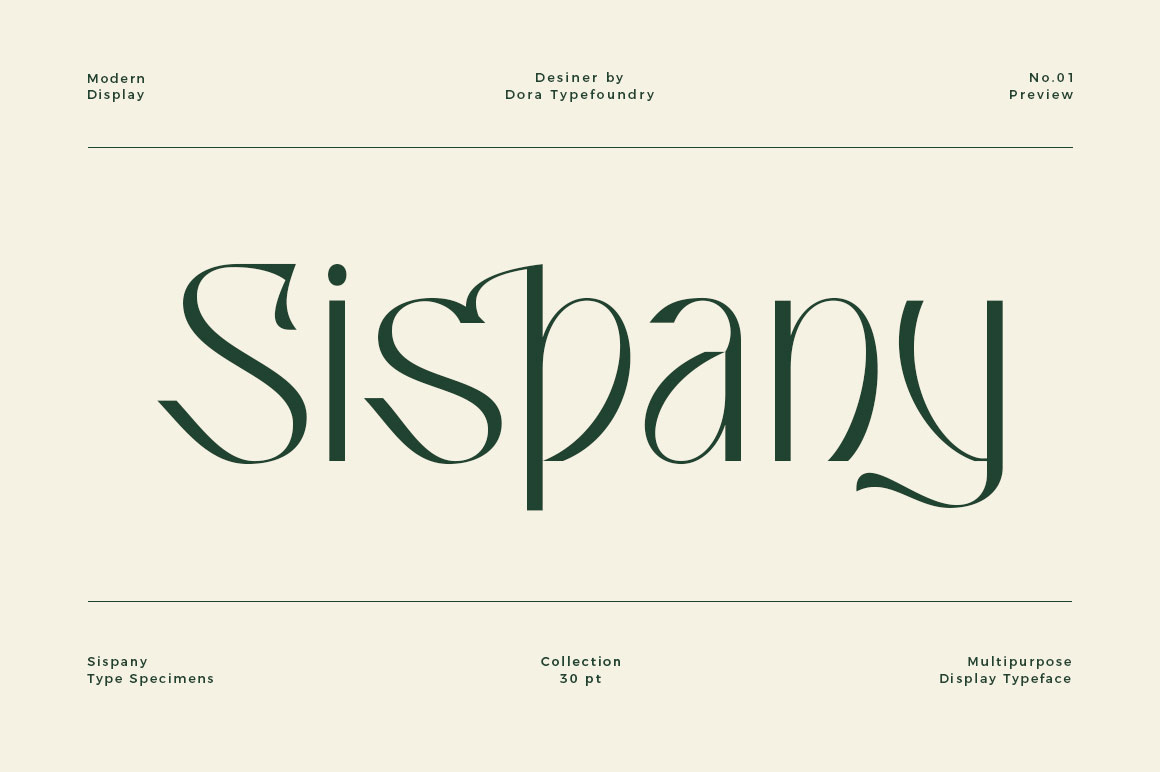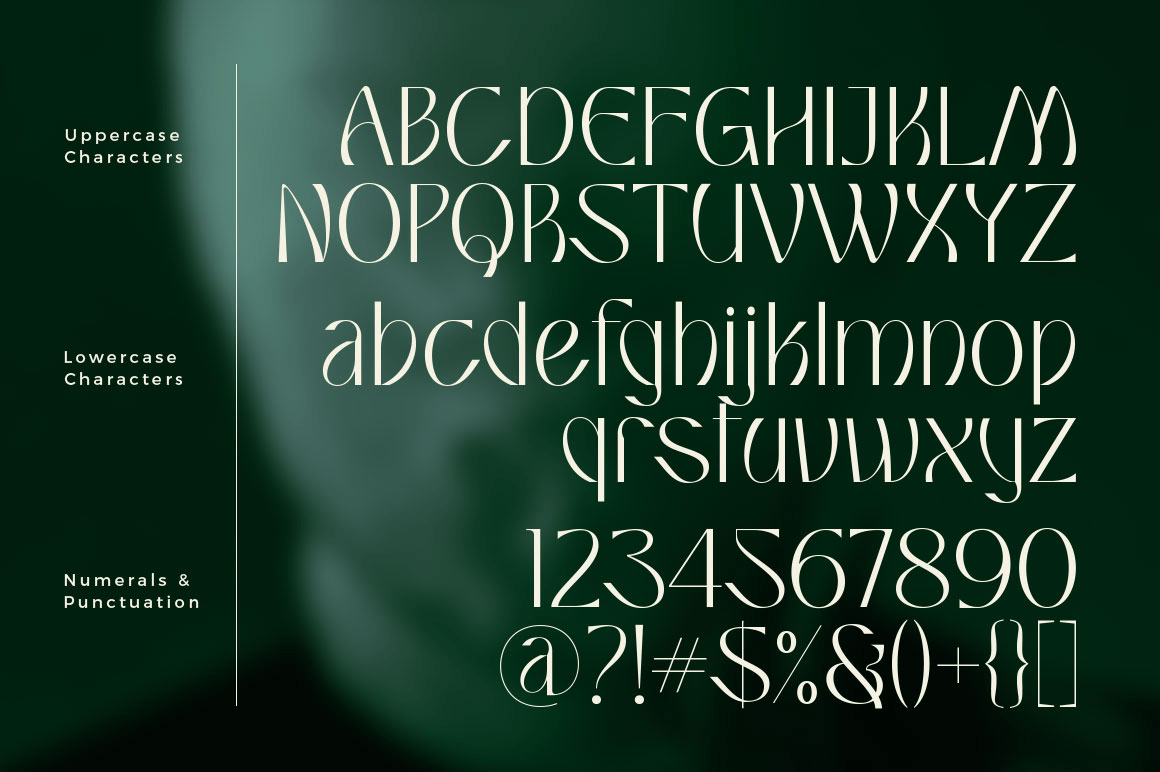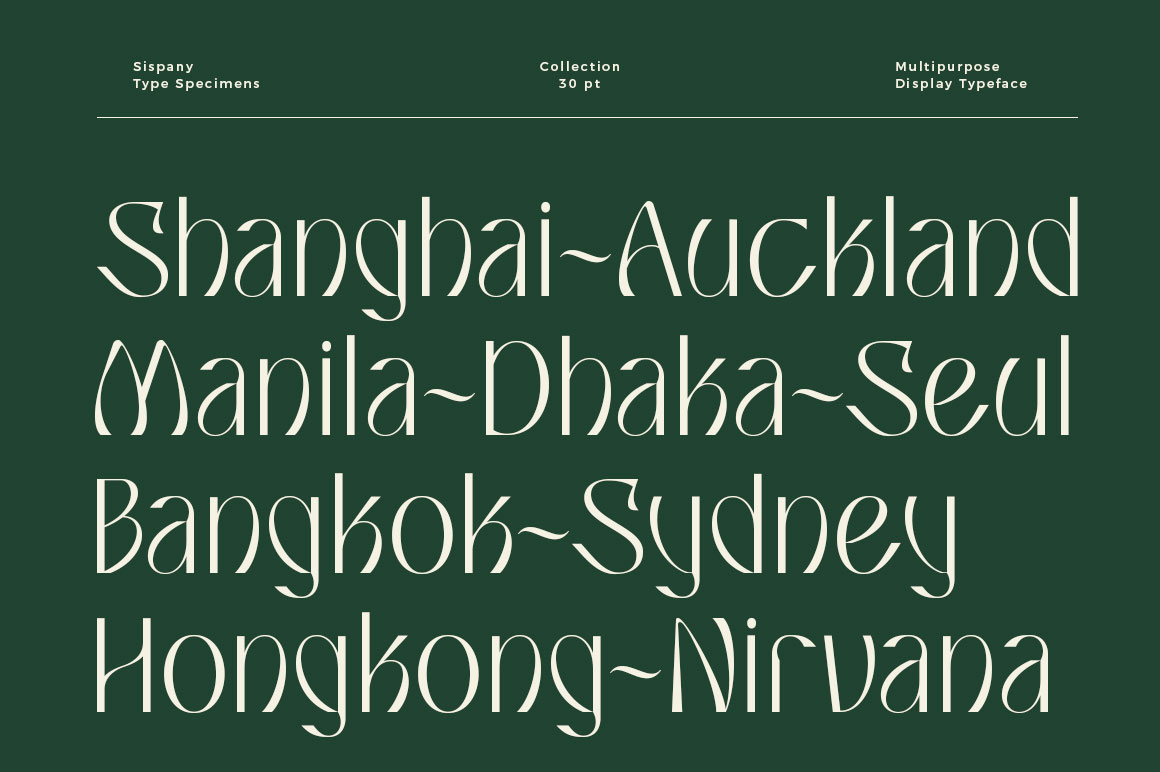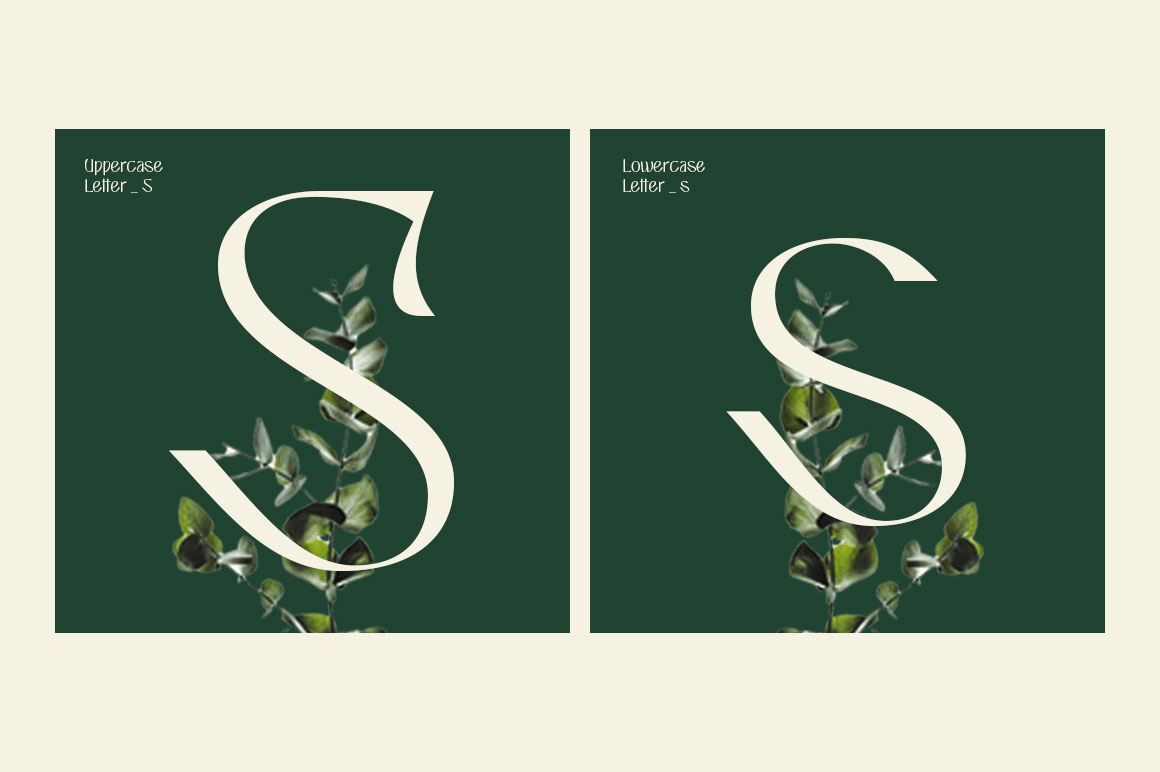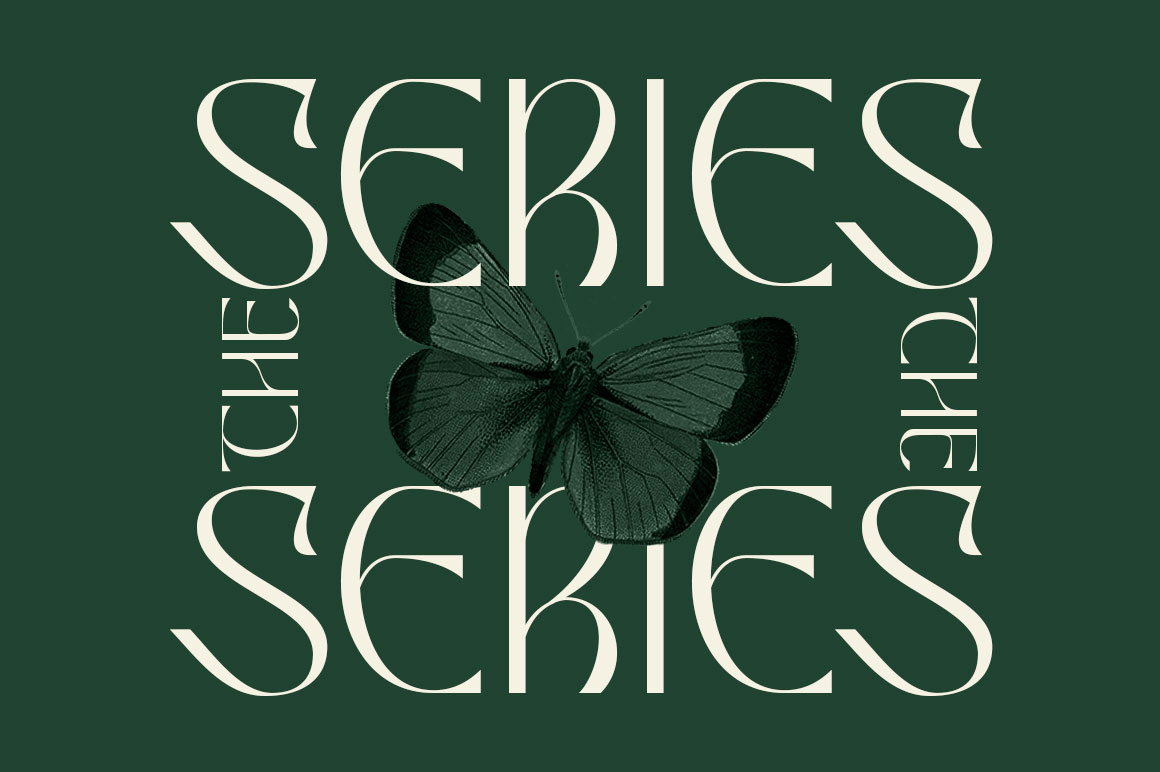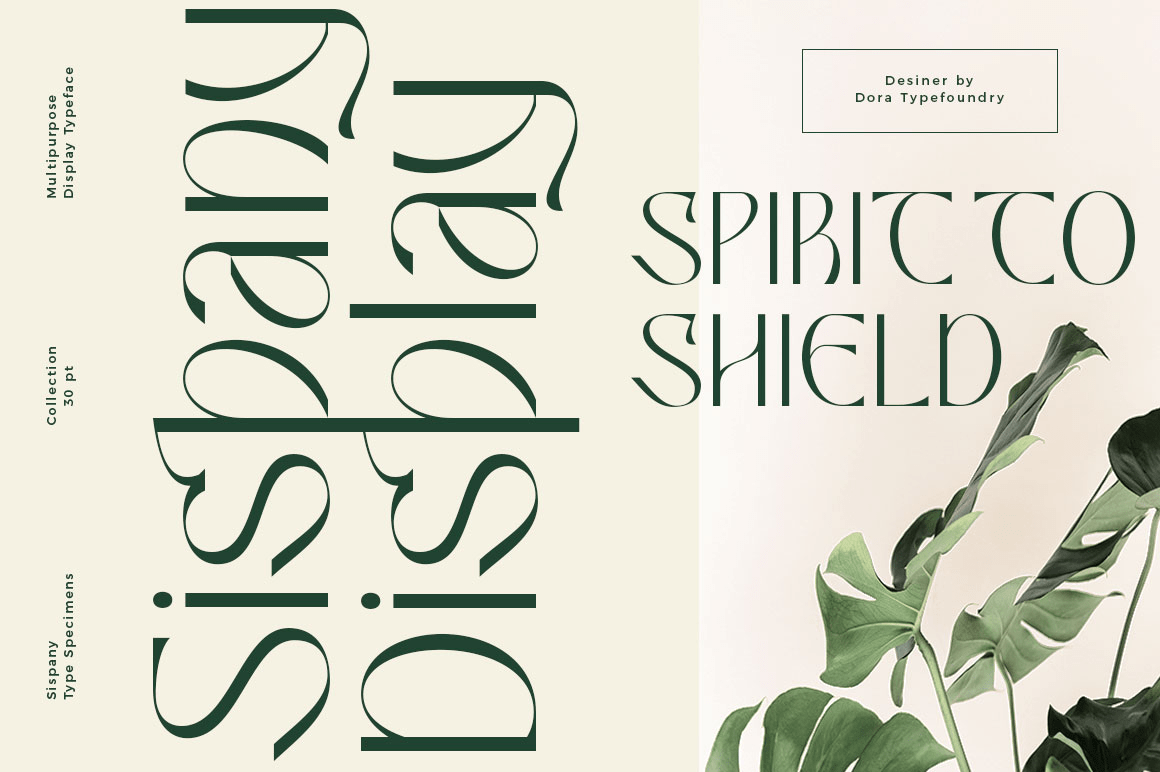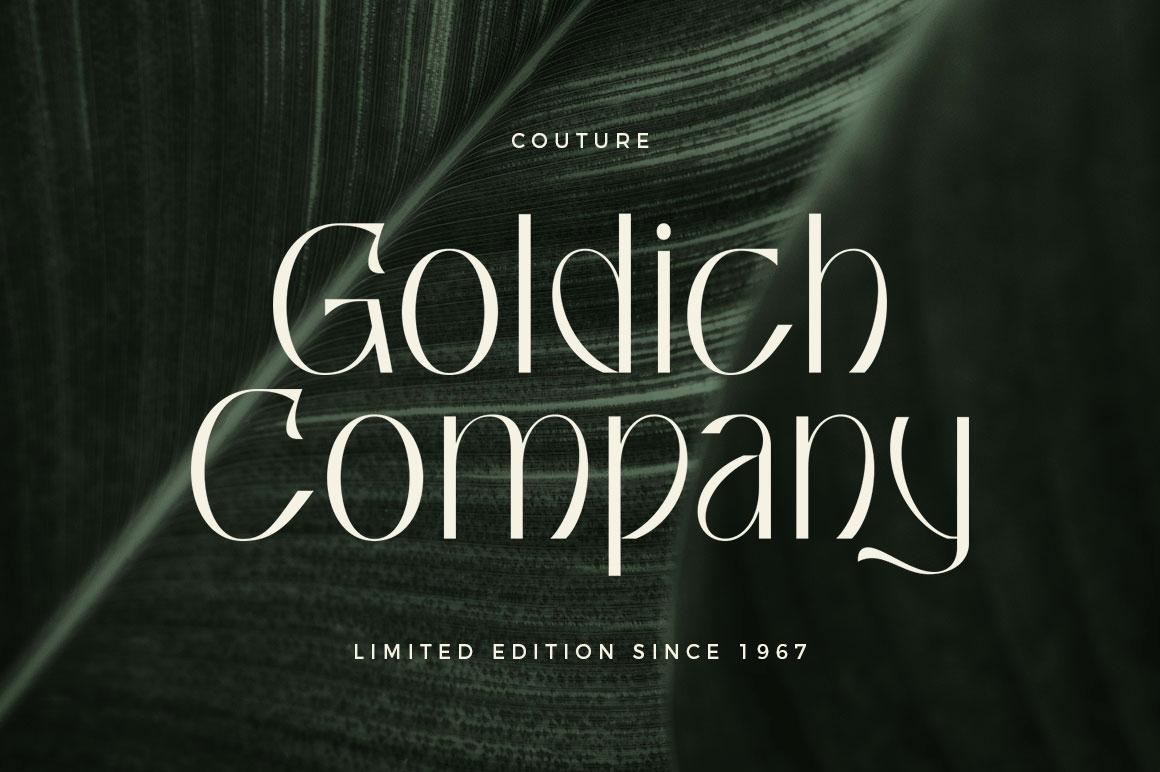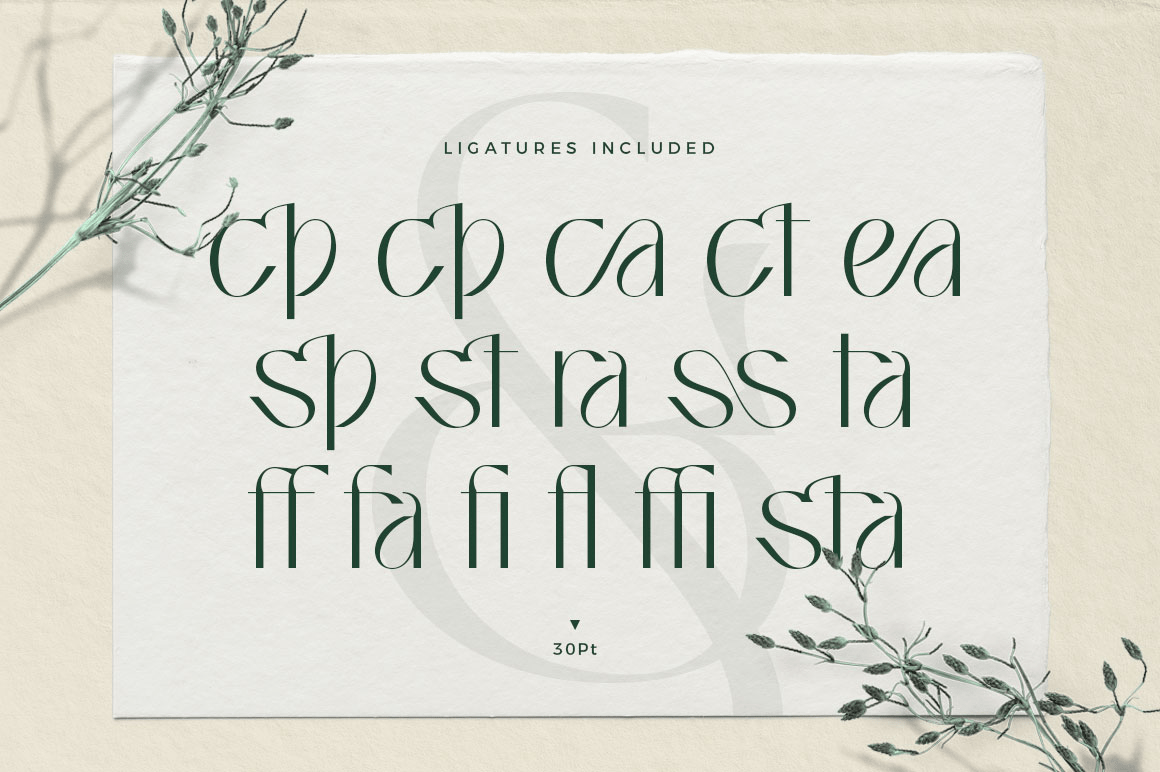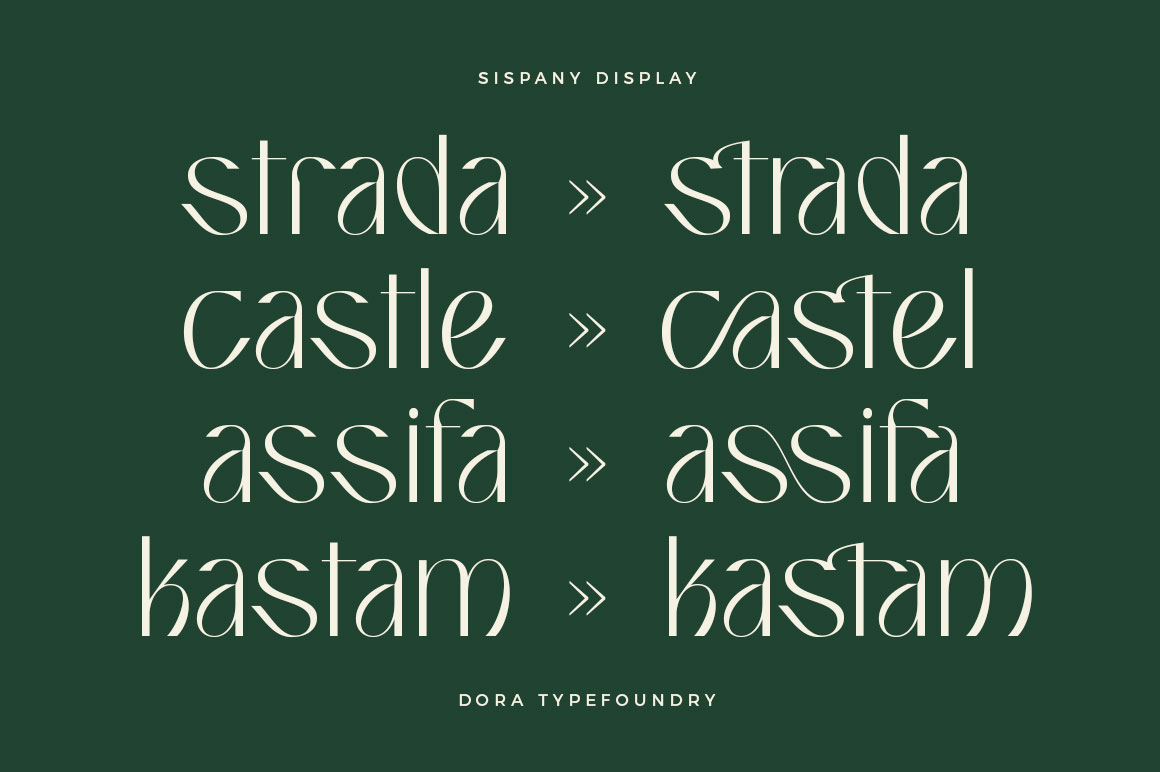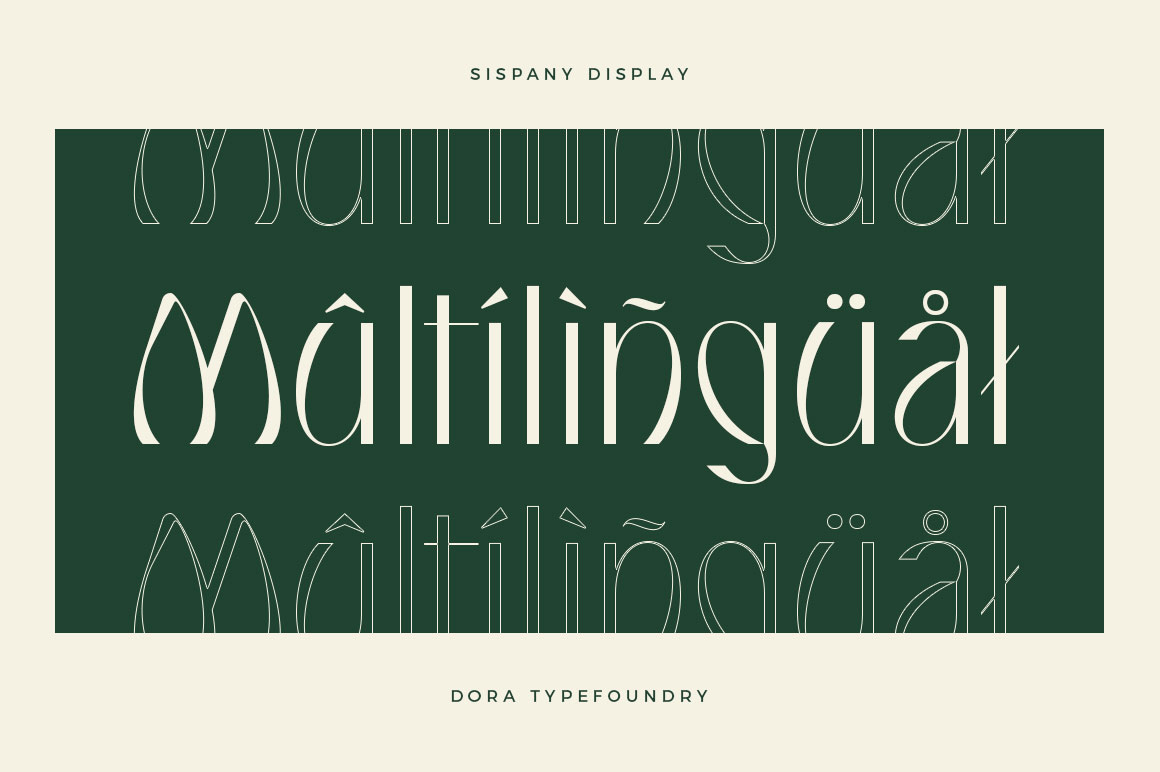
Sispany
Font Family by Dora Typefoundry
Sispany is a sophisticated sans serif font with a unique typeface that works well for your design projects and is carefully crafted to ensure premium quality and a luxurious feel. The shape of the letters makes this typography unique and stand out.
It is suitable for logos, headlines, titles, and various other formal forms such as invitations, labels, logos, magazines, books, greeting/wedding cards, packaging, fashion, make up, stationery, novels, labels or all kinds of advertising purposes.
Uppercase & Lowercase
Alternates & Ligatures
Numbers & Punctuation
Characters with Accents
Supports Multiple Languages